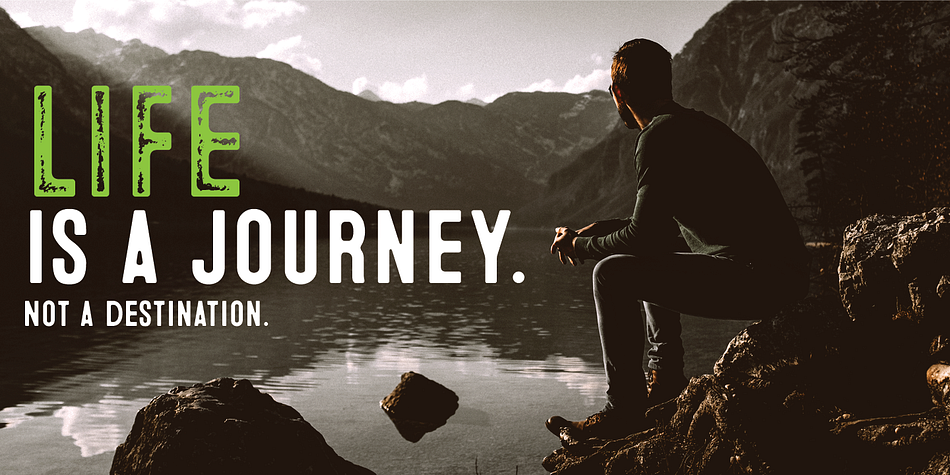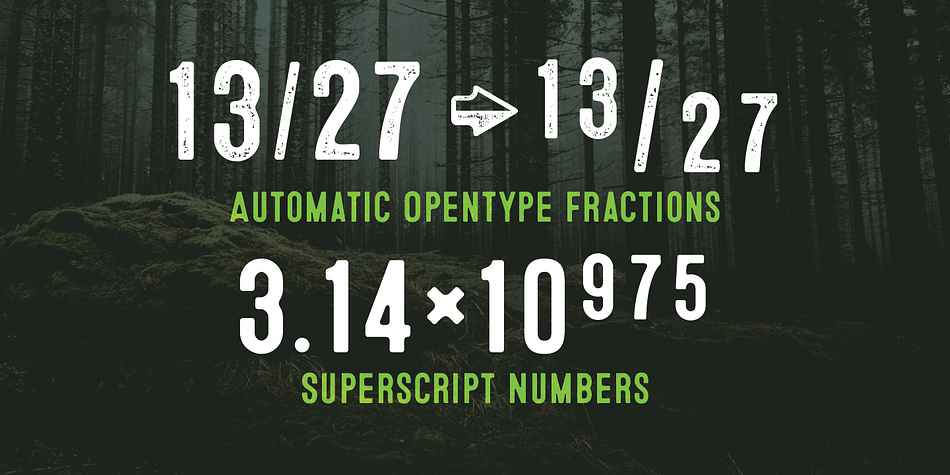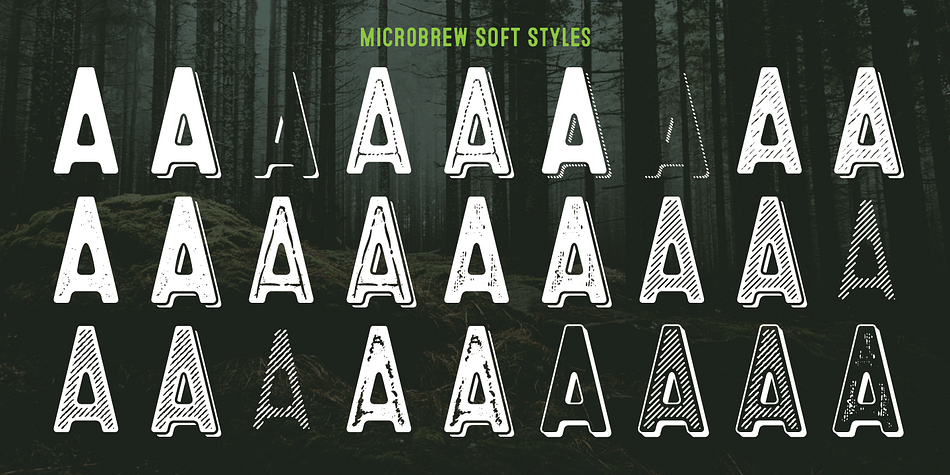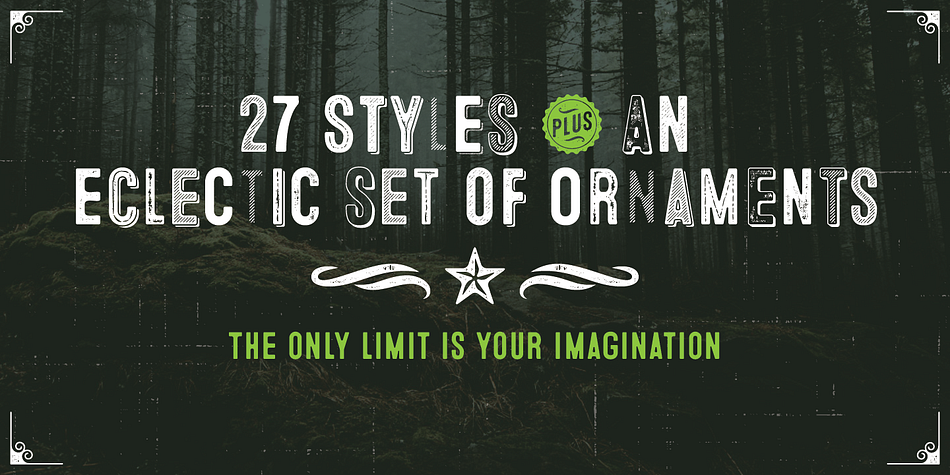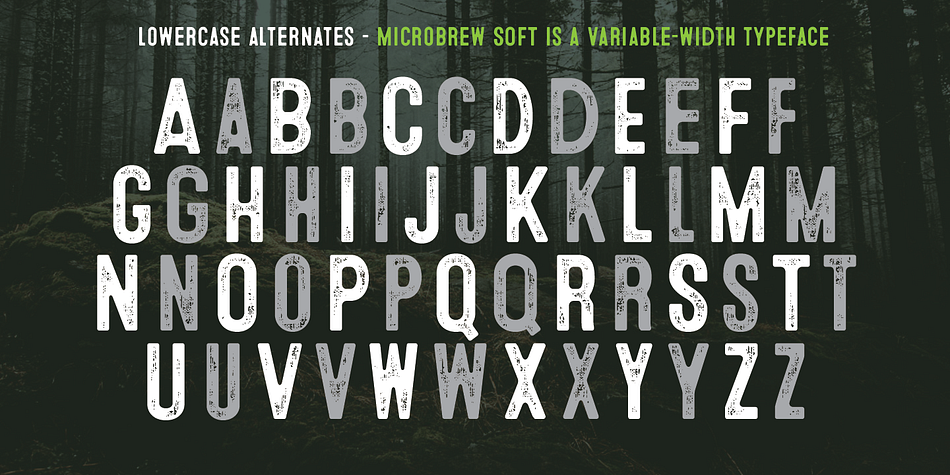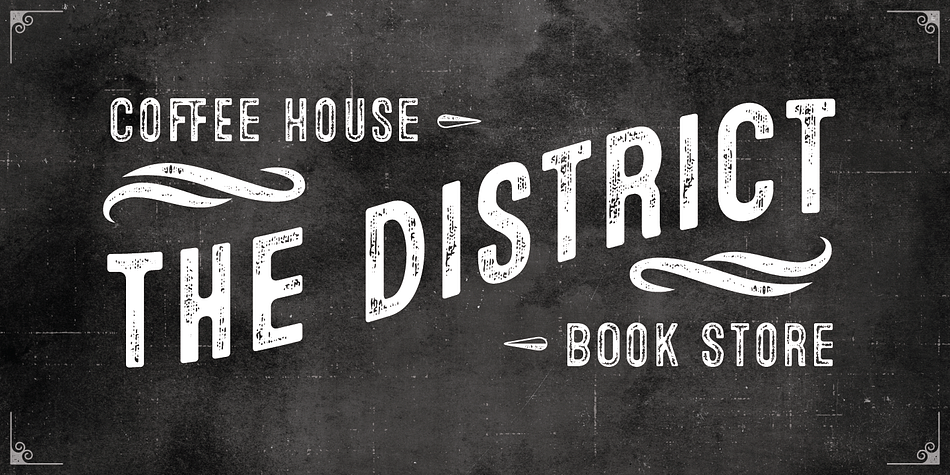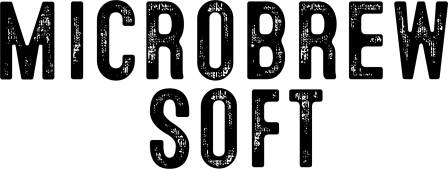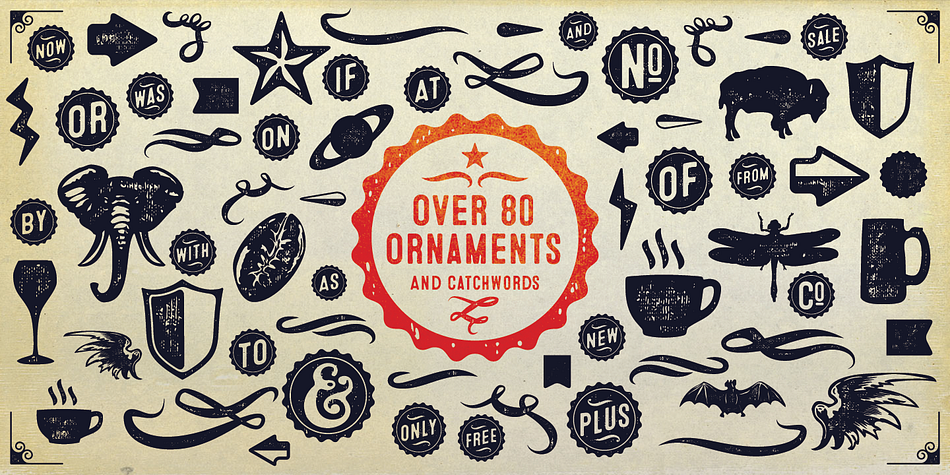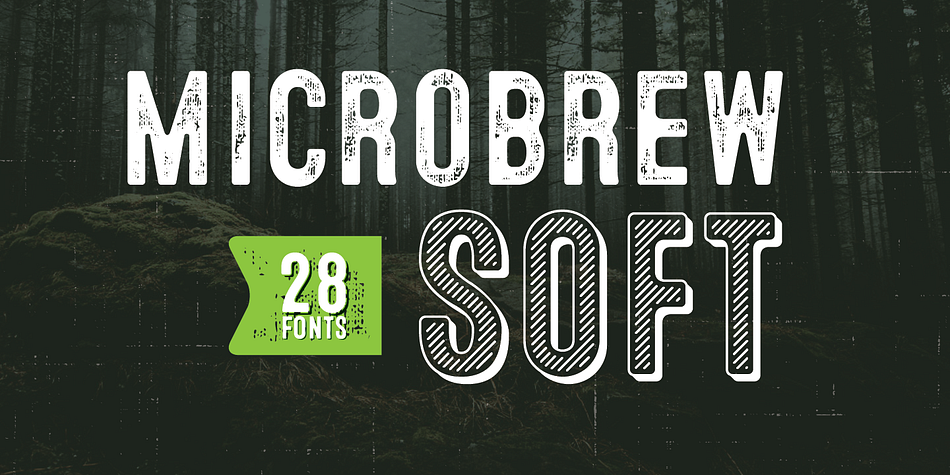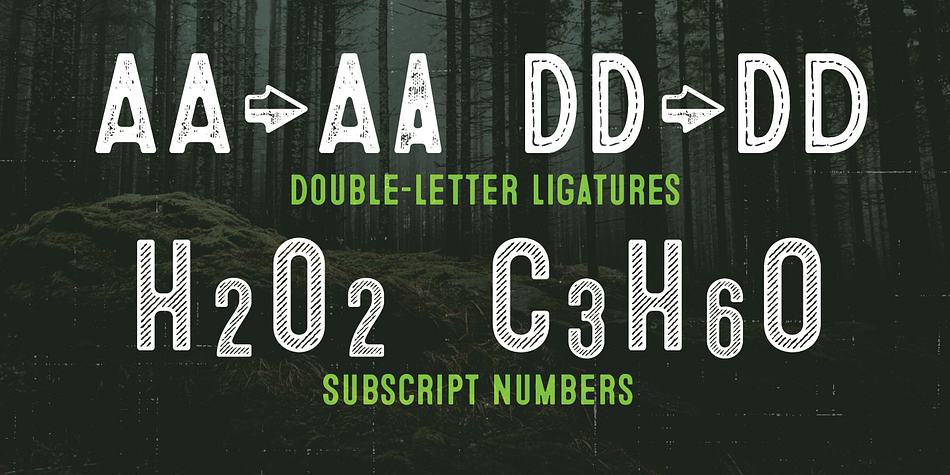
Microbrew Soft is a dingbat, grunge and display sans font family. This typeface has twenty-eight styles and was published by Albatross.
Microbrew Soft is the latest addition to the Microbrew family of fonts. What sets it apart are the soft edges and clean outlines, yet it still retains the retro and textured feel. You can get as clean or dirty as you want! With 27 individual styles plus an eclectic set of ornaments and catchwords, the possibilities are limitless when it comes to how many faces the font family can wear in your design. Microbrew Soft sports a nice mix between wood type poster style and vintage letterpress. The more detailed styles work well at large sizes, and the cleaner styles add legibility at smaller sizes.
Microbrew Soft is an all caps display font, but the lowercase act as alternates so adding variety to your letterforms is as easy as mixing uppercase and lowercase letters. To add to the realism, Microbrew Soft includes double-letter ligatures. Opentype features include automatic fractions, subscript numbers, superscript numbers, and double-letter ligatures.
Don’t let the name fool you, Microbrew Soft is very versatile and works great for almost any subject matter, including weddings, birthdays, restaurants, coffee shops, music, and many more.